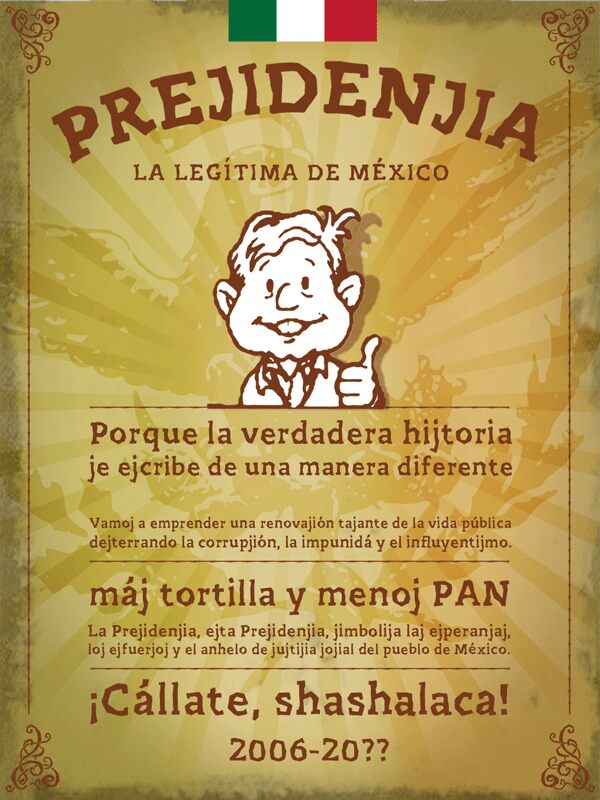
Prejidenjia by Cristobal Henestrosa and Luis Novoa is a free rough hand-cut display font with a blunt, unruly silhouette. The letters combine uneven stroke widths with skewed joins and lopsided curves. Sharp notches and irregular edges make the forms look cut from paper rather than carefully drawn.
It suits punk posters and children's game graphics alike. On snack packaging or event signage, the recurring cut-paper shapes can become part of collage artwork, torn labels, handmade props, or roughly painted scenery.
Prejidenjia is a joke intended to represent the self-proclamed legitimate president of Mexico, Andres Manuel Lopez Obrador. This font is a parody of Presidencia, designed by Gabriel Martinez Meave for the Presidency of Mexico.